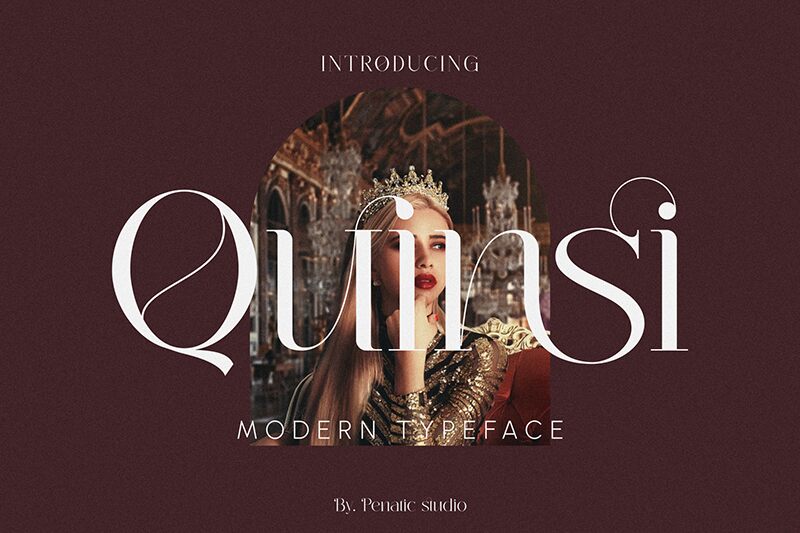
Quinsi font by Penatic Studio is an elegant serif typeface presented in a modern style. This font carries sophisticated aesthetics with minimalistic design elements yet attracts attention with its refined appearance. Its high contrast, significant in both horizontal and vertical lines, makes the majestic font great for all your designs.
Use Quinsi for branding and logo design or give book covers a fine presentation with it. That’s just the tip of the iceberg since its letters also look great at large sizes on billboards, posters, banners, shop signs, neon signs etc. Small text sizes make lovely product labels and packaging ideas so have fun experimenting while combining different sizes.